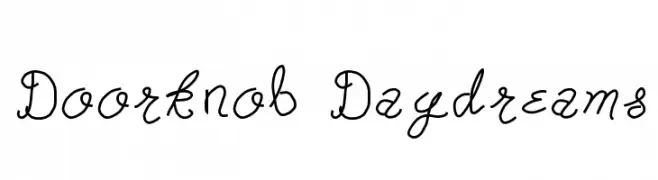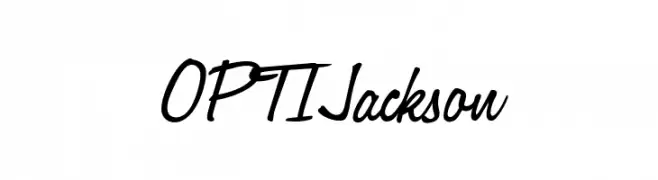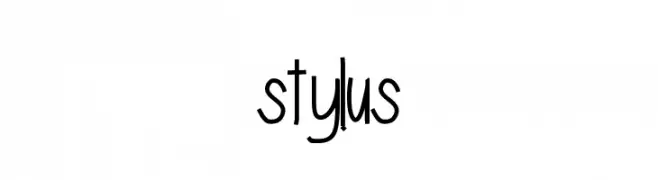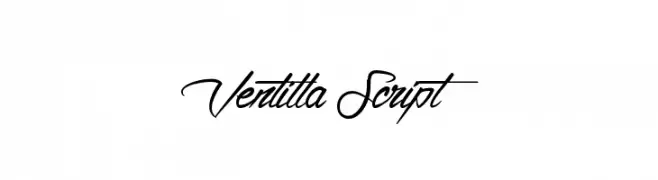
A fluid, cursive script font with elegant, interconnected characters and a dynamic slant.
A playful, handwritten font with fluid, flowing letterforms and a casual style.
A lively handwritten font with fluid, sweeping strokes and a casual, energetic style.
An artistic font with fluid, droplet-like terminals and elegant curves.
A sleek, italicized font with a modern and fluid design.
A lively handwritten font with fluid strokes and elegant slant.